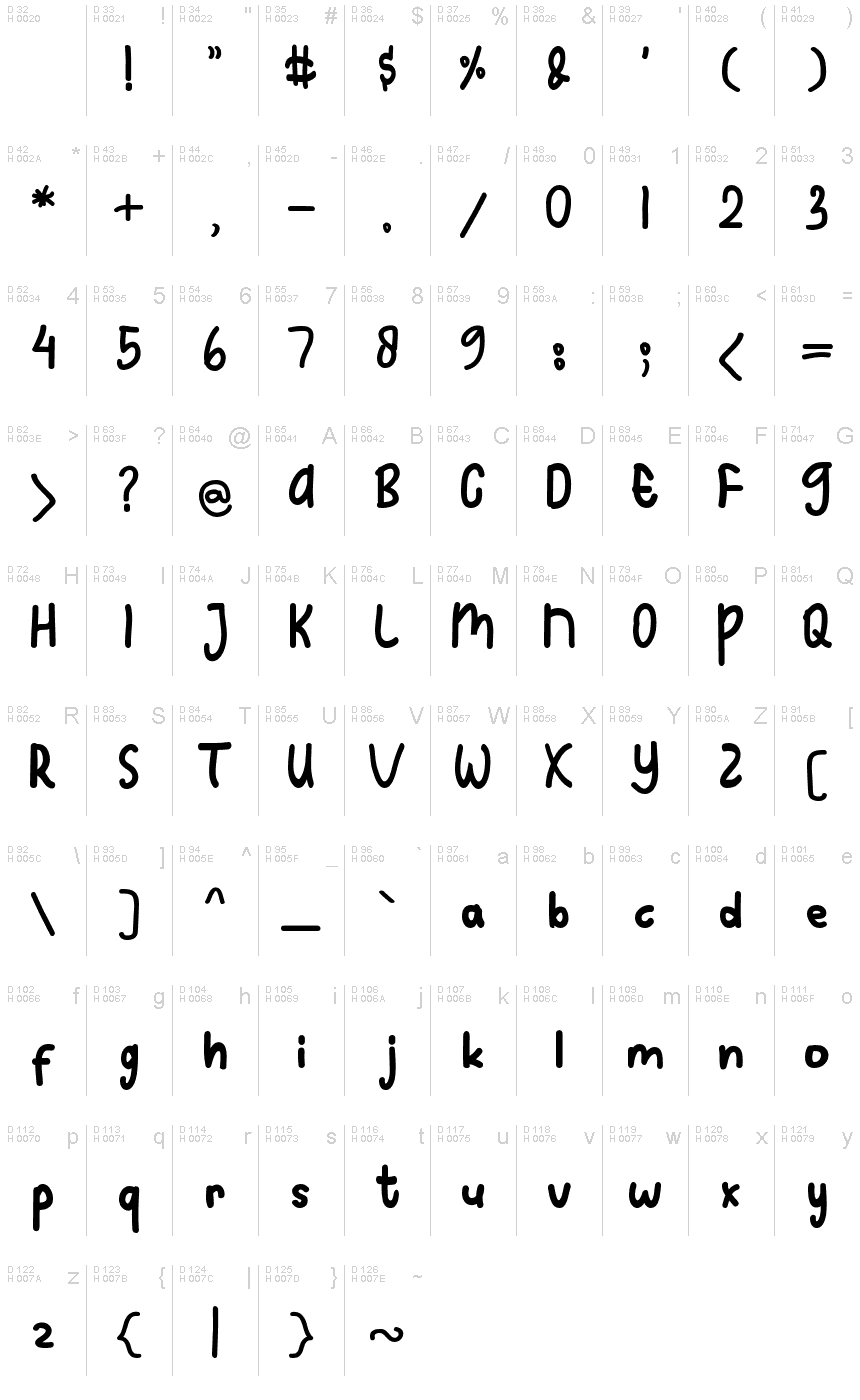
shimmering
Shimmering, a handwritten font by Stellaris Std 2021, is perfect for adding a unique and creative touch to any project. This font is ideal for crafting invitations, greeting cards, logos, posters and more.